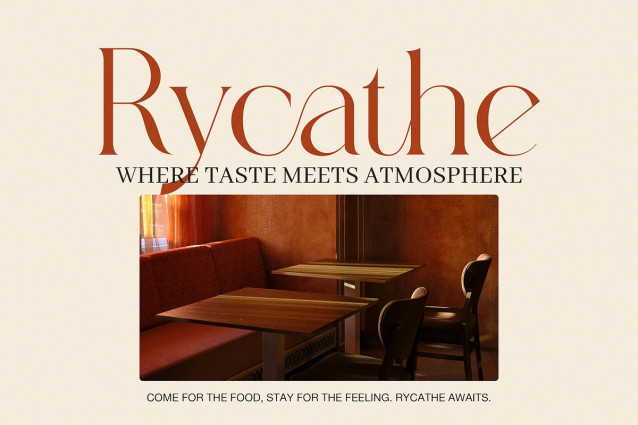
Clostha Font is a stylish and classy font made for bold and modern designs. It blends the beauty of classic serif fonts with a clean, modern twist. Because of its high contrast and sharp lines, it stands out in logos, branding, posters, and magazine layouts.
This font is made for anyone who wants to add a premium touch to their work. It works best in large sizes where its fine details can shine. At the same time, it stays clean and readable. If you’re building a brand, designing a wedding invite, or crafting a bold title, Clostha Serif is a smart choice.